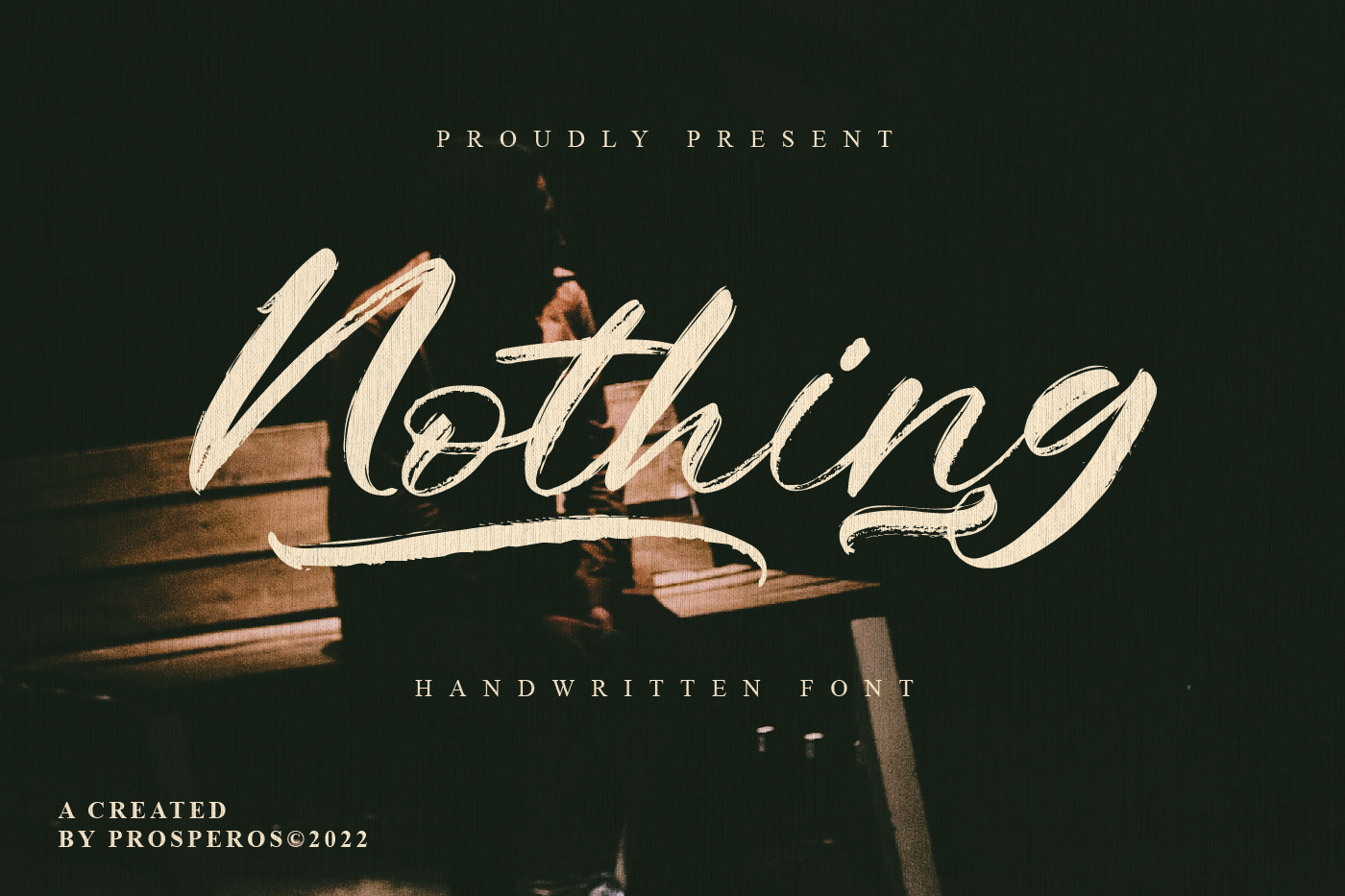
Nothing - Handwritten Font
Nothing is a casually and quickly written brush script. Letters are made with brush pen on a paper. Then scanned and carefully drawn into vector format. This font is great for your next creative project such as Logotype, printed quotes, invitations, cards, product packaging, headers, Letterhead, Poster, Apparel Design, Label, and etc.
- Alternate, Ligature and Swashes